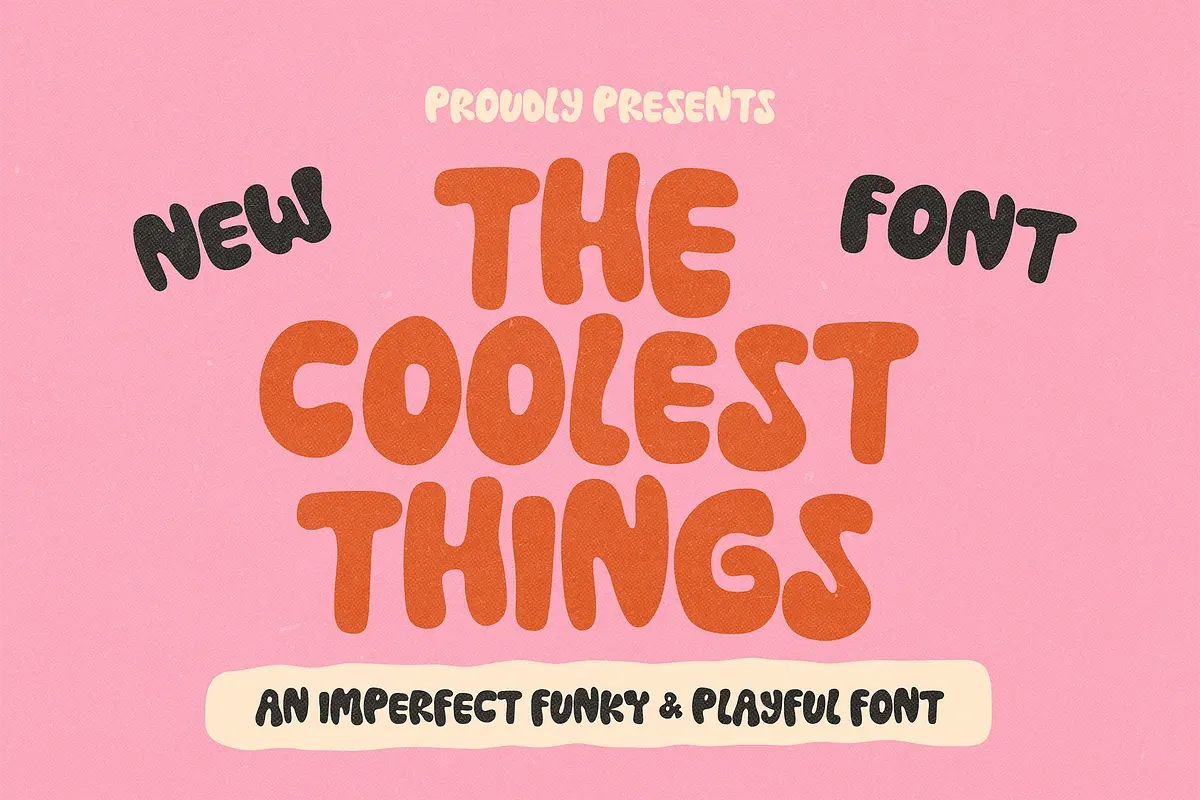
THE COOLEST THINGS - FUNKY FONT Free Download is a vibrant and playful typeface that brings a fun, bold energy to any design. Perfect for posters, logos, and creative projects, this font captures the essence of funky, retro style with its unique shapes and lively personality. Whether you’re working on music posters, event promotions, or social media graphics, this font adds an exciting and eye-catching touch to your work.